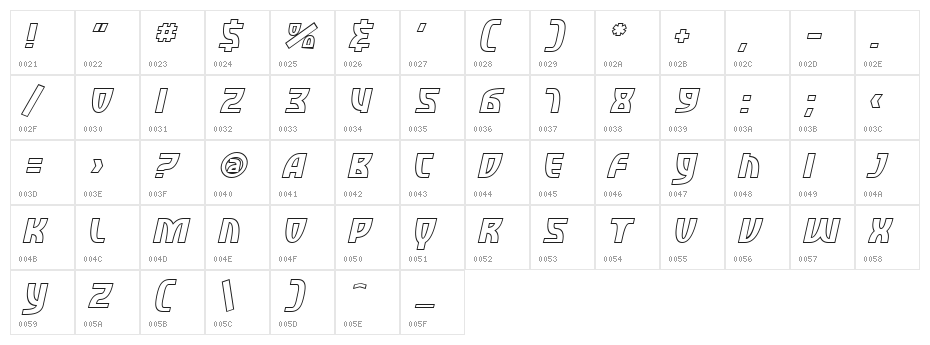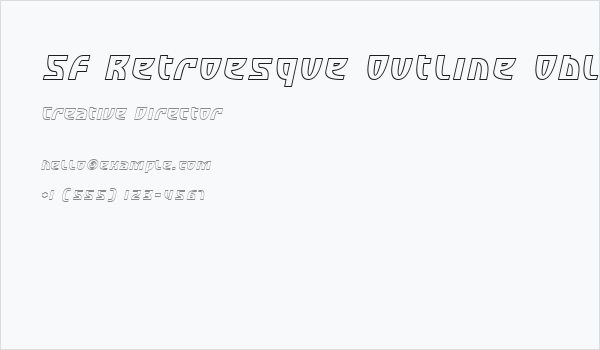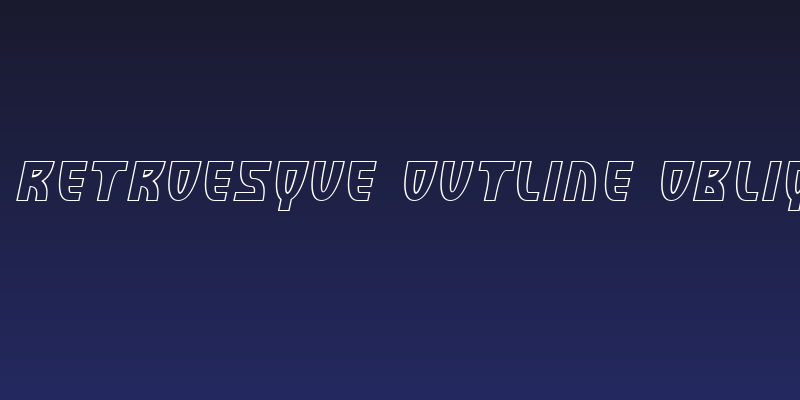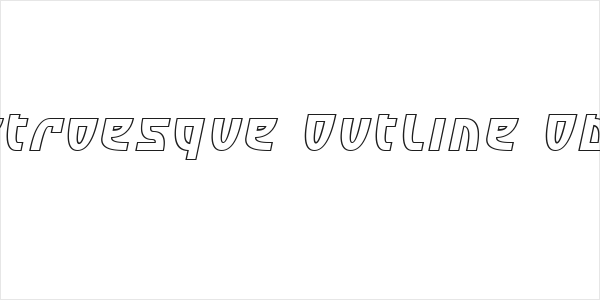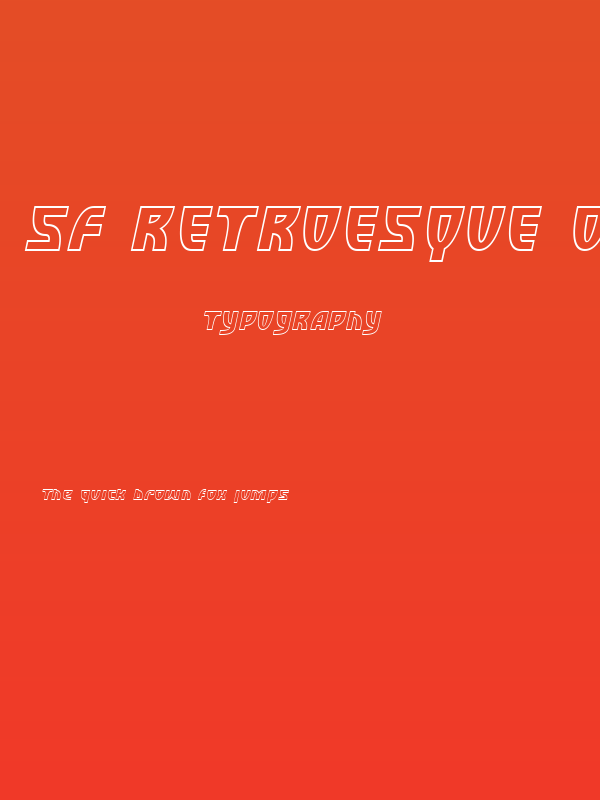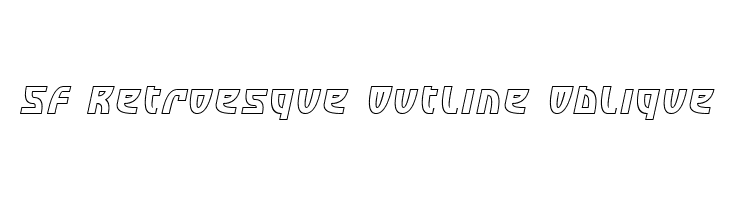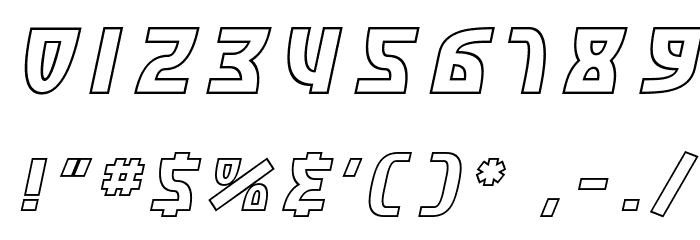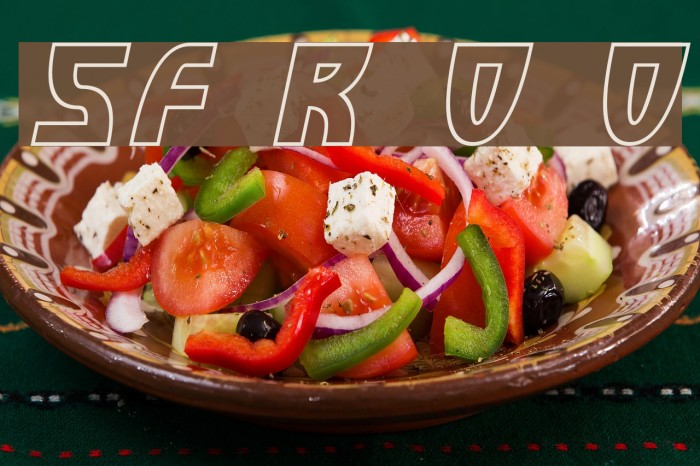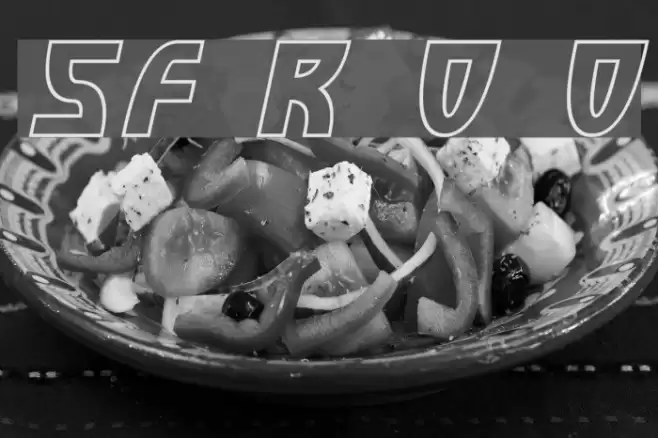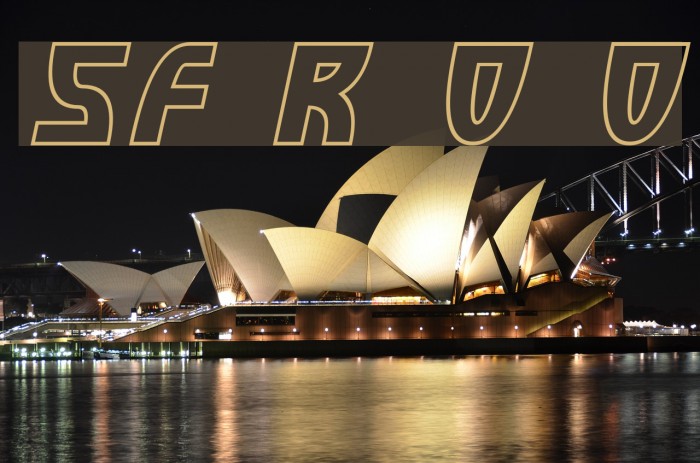
SF Retroesque Outline Oblique Font
SF Retroesque Outline Oblique Description
This font features a distinct retro aesthetic with an outline style that gives it a unique, futuristic appearance. The characters are designed with a slanted, oblique orientation, adding a dynamic and energetic feel. The geometric shapes and sharp angles contribute to its modern look, while the outline effect provides a sense of depth and dimension. The uppercase and lowercase letters maintain a consistent style, with a playful yet structured form. Numbers and special characters are equally stylized, ensuring a cohesive visual experience across all elements.
| Overall Style | Retro, Futuristic |
| Proposed Projects | Ideal for projects that require a vintage yet modern look, such as retro-themed posters, sci-fi book covers, or branding for tech startups. |